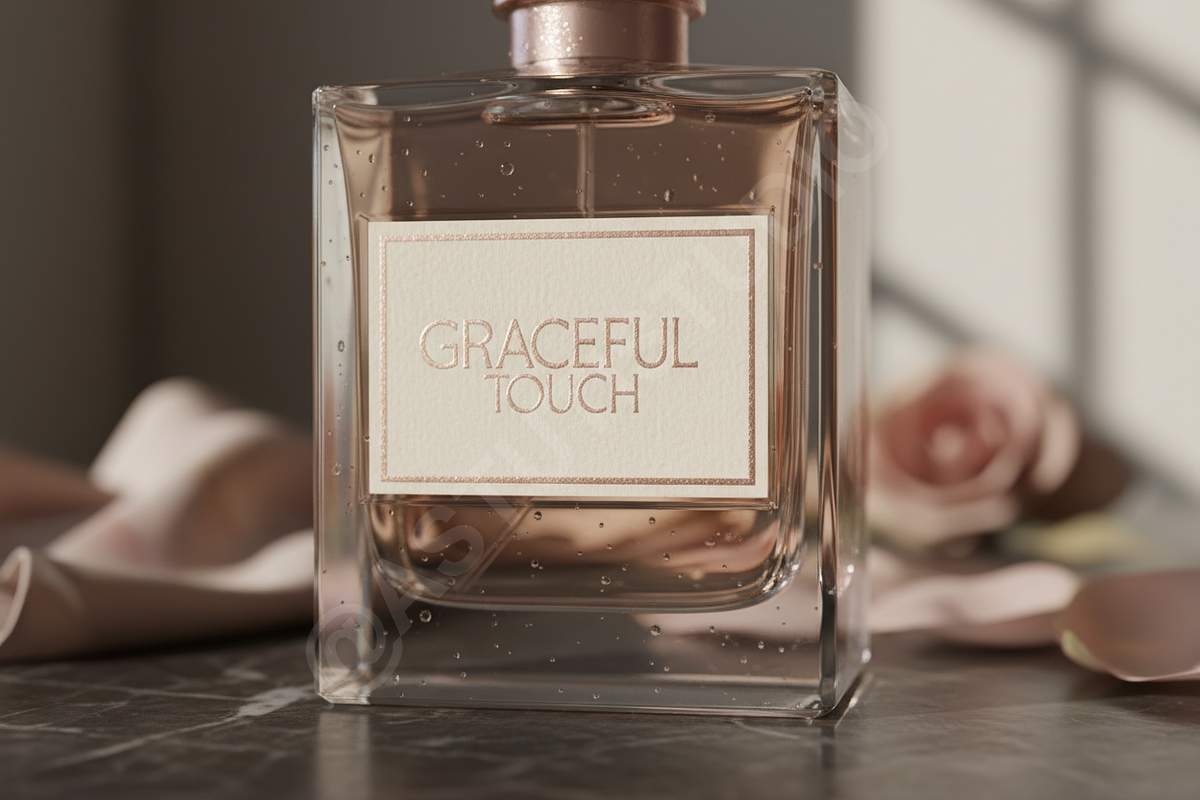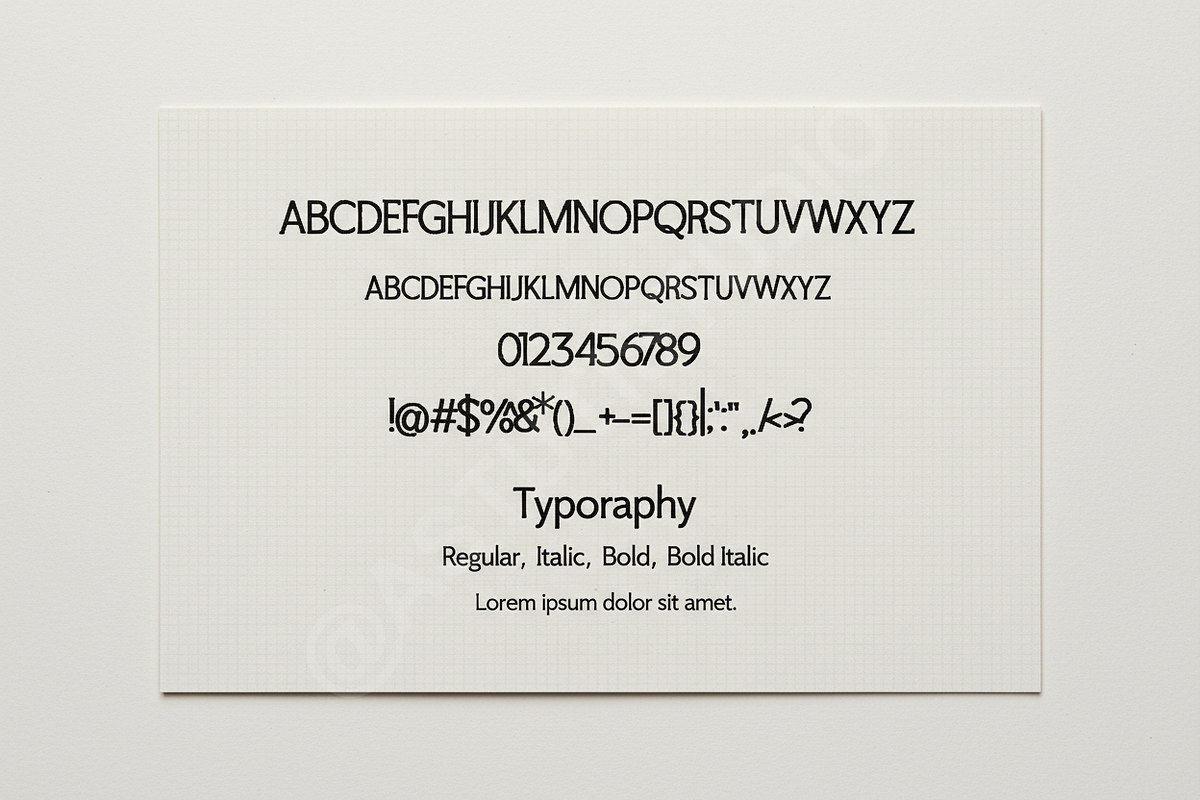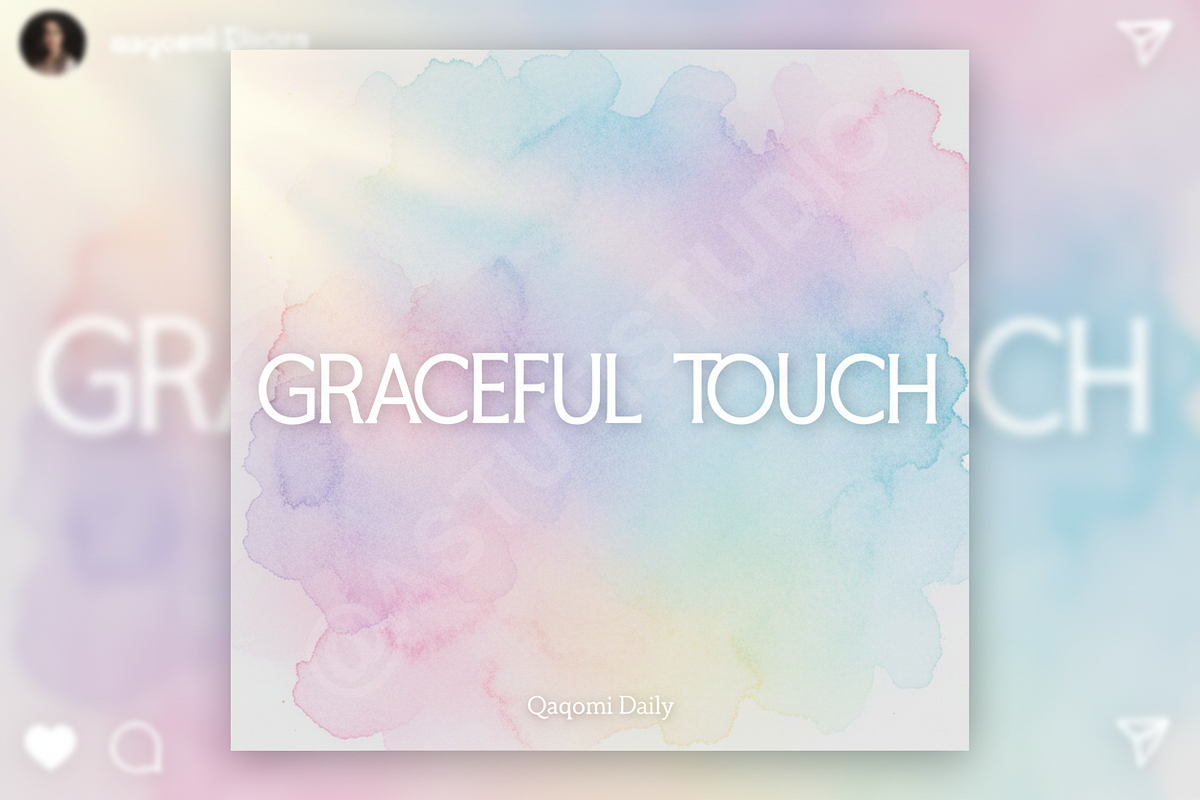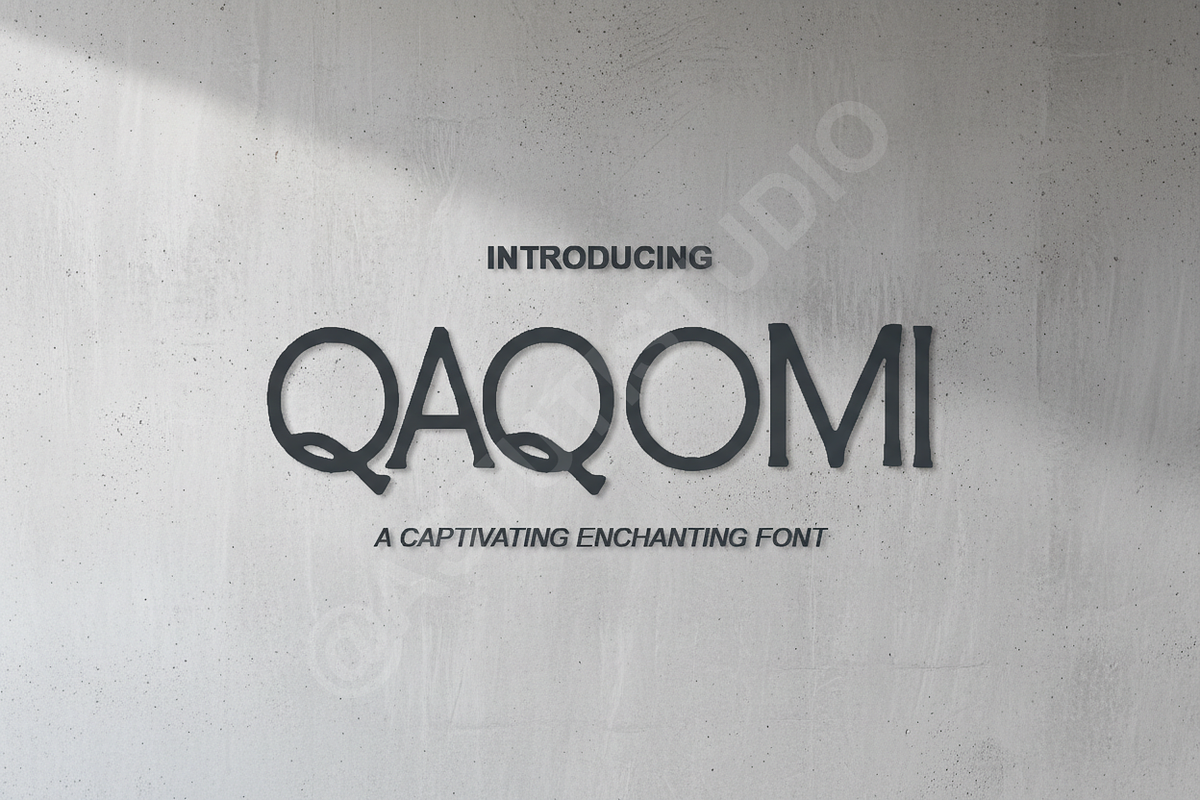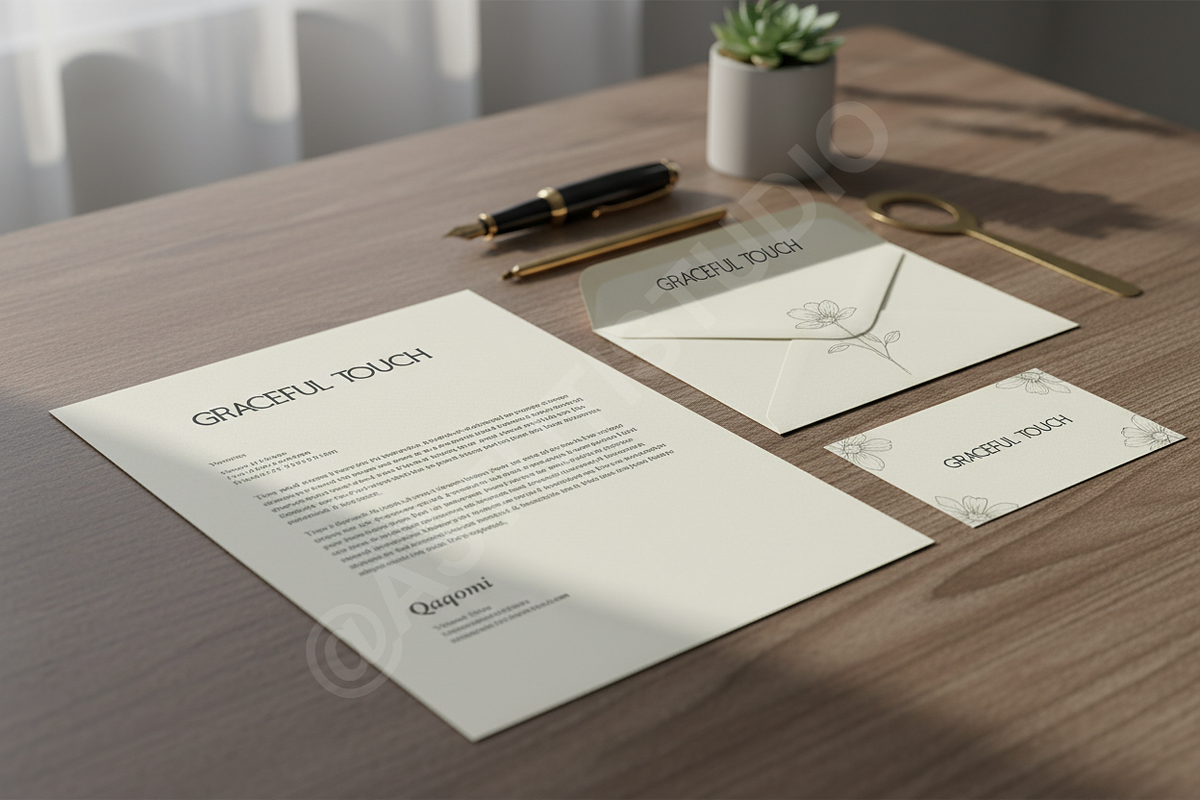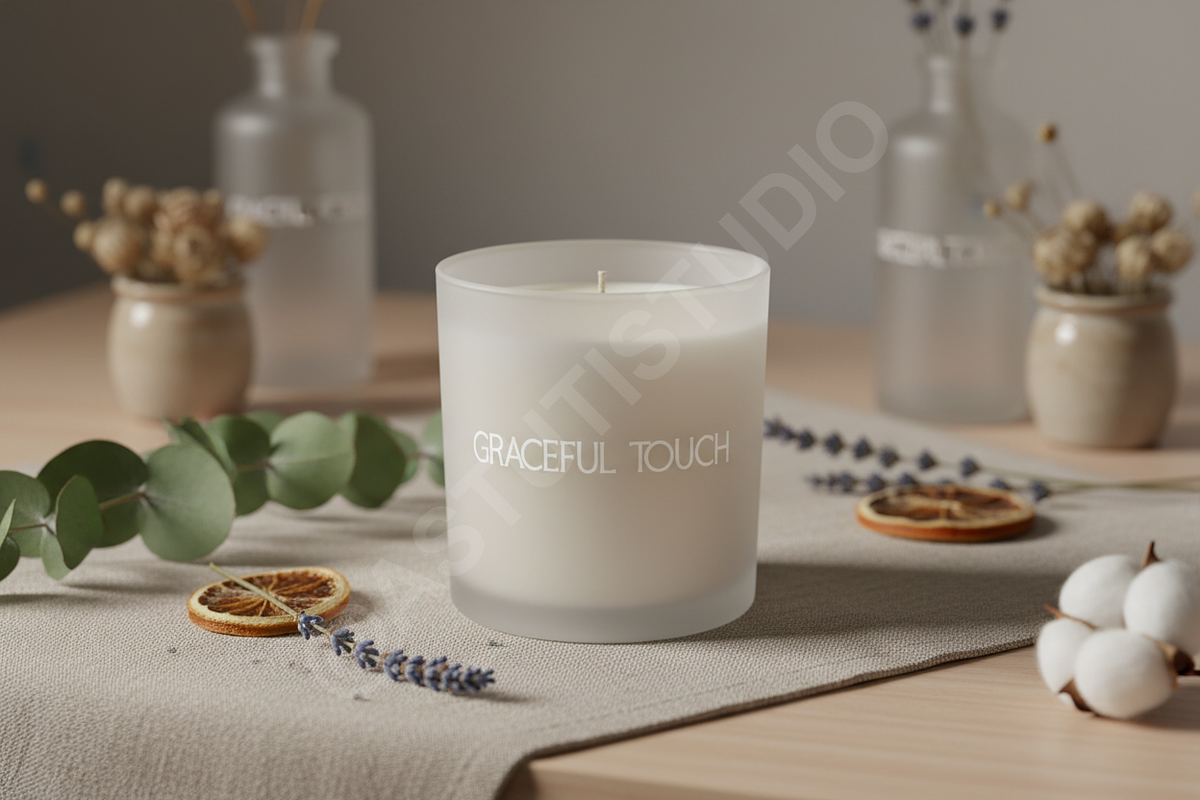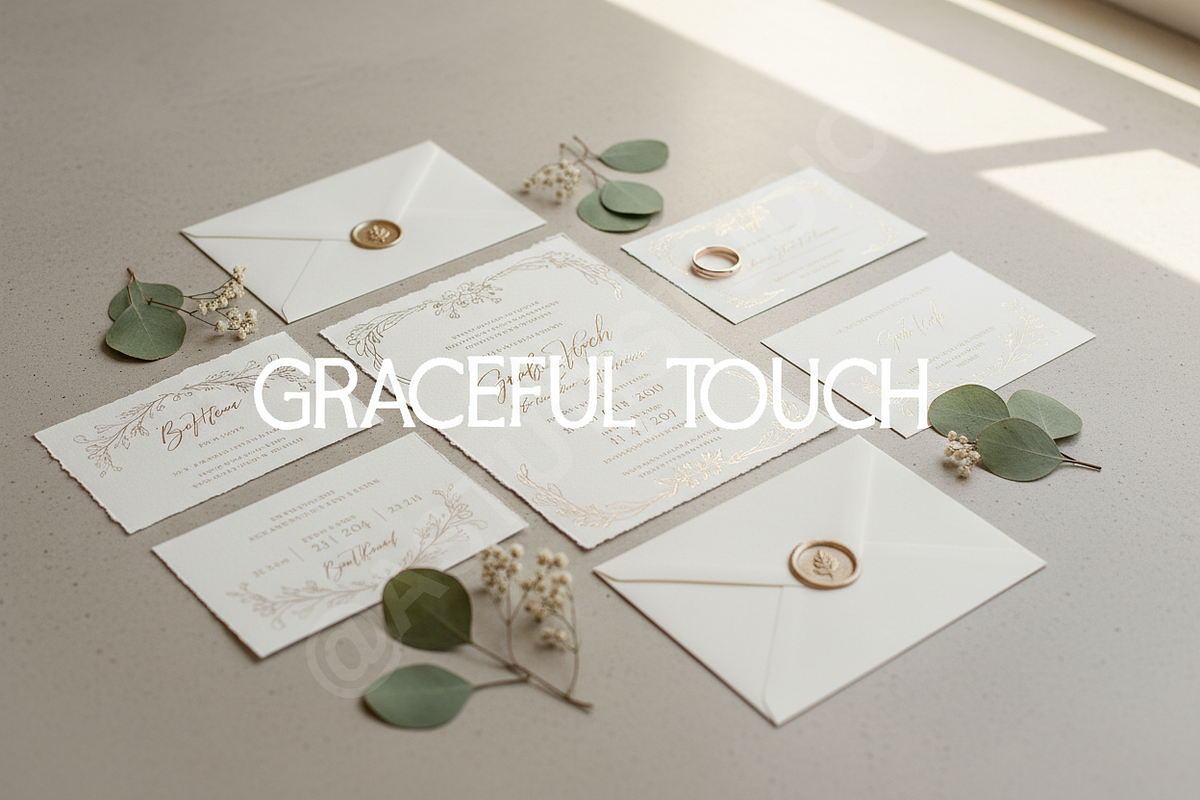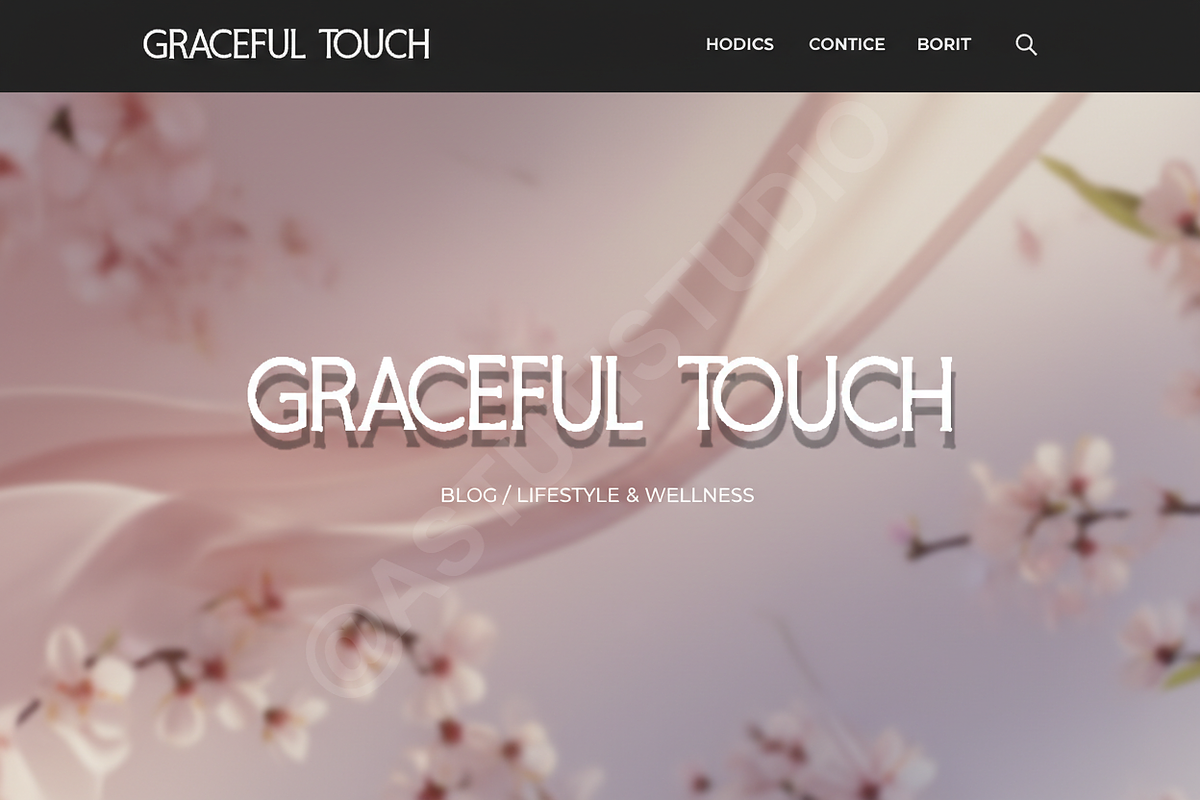
Qaqomi | A Sophisticated Luxury Ser
Qaqomi is a premium serif typeface meticulously crafted for high-end aesthetics and professional clarity. Merging timeless elegance with modern sophistication, this font provides a balanced and authoritative presence for any creative project. It is perfectly suited for luxury branding, editorial design, high-fashion marketing, and elevated social media content where style and readability are paramount.
- Sophisticated serif letterforms with clean, sharp edges
- Unique discretionary ligatures and stylistic alternates for custom layouts
- Extensive multilingual support for global brand accessibility
- Precision-optimized kerning for professional-grade readability
- Versatile performance across both digital and print mediums
- Full character set including uppercase, lowercase, numbers, and punctuation